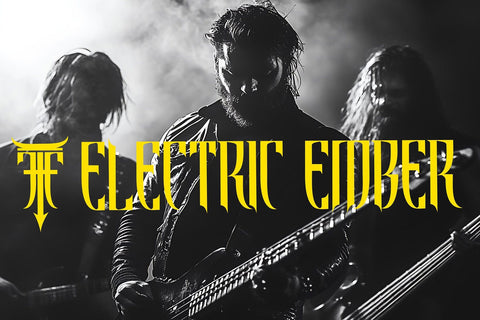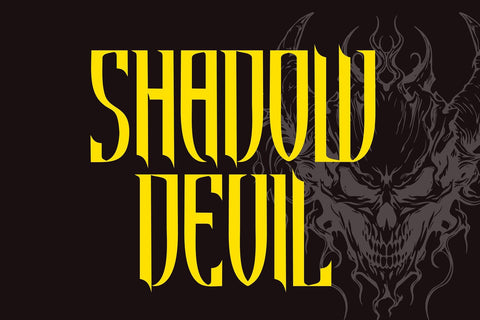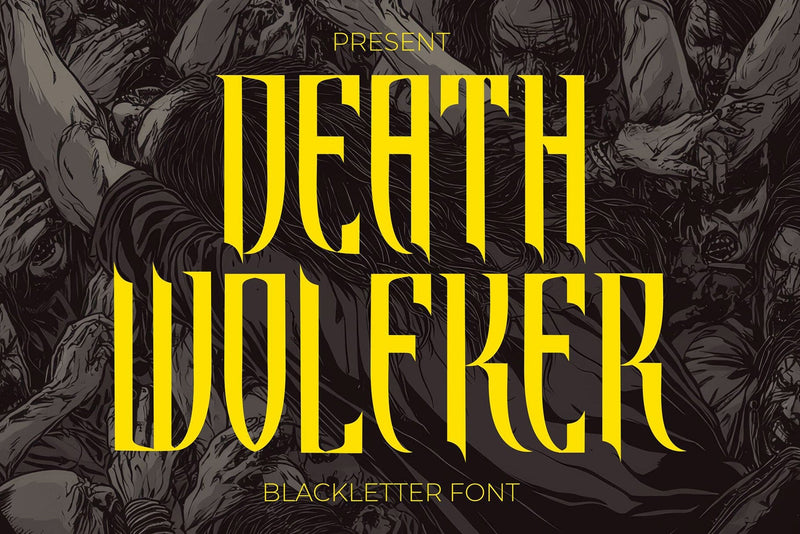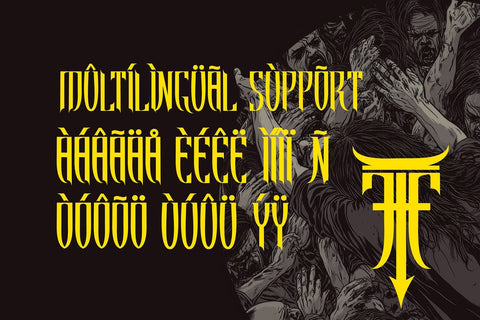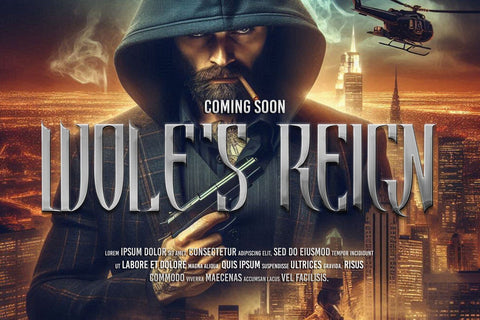
Death Wolfker - Sharp Blackletter Font
Death Wolfker is a sharp and sleek Blackletter font with thin, edgy strokes that evoke a sense of mystery and intensity. Its sharp edges and precise detailing make it perfect for projects with a gothic, dark, or eerie theme.
Ideal for branding, logos, album covers, posters, and any design needing a powerful, medieval, or haunting aesthetic, Death Wolfker combines the traditional elegance of Blackletter fonts with a modern, razor-sharp twist, adding a sense of boldness and sophistication to your creative projects.
- Sharp Characters